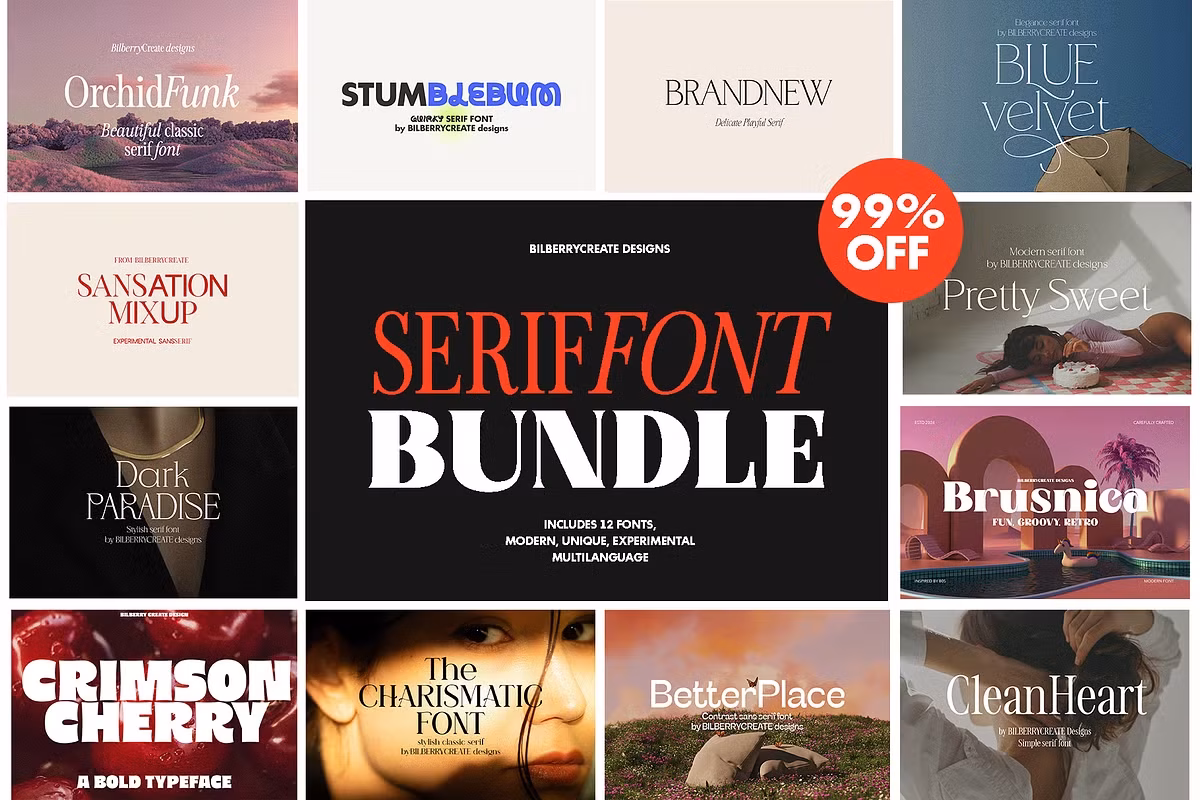
Seriffont BUNDLE Free Download is a versatile collection of elegant serif fonts designed for creative professionals seeking timeless style. This bundle features a range of serif typefaces with varying weights and styles—perfect for logos, editorial layouts, branding projects, and packaging design. Each font within the bundle brings its own unique flair, making it easy to mix and match for dynamic typography.
Try Seriffont BUNDLE Free Download today and explore how these premium serif fonts can elevate your design projects. With smooth curves, sharp details, and excellent readability, this bundle is ideal for designers who appreciate classic aesthetics with a modern twist. Whether you're creating business materials or artistic visuals, this font bundle delivers flexibility and elegance in one powerful package.